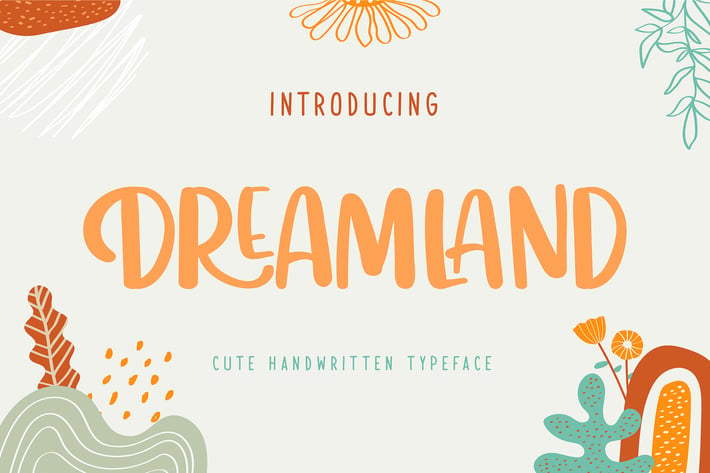
Dreamland | Cute Handwritten Typeface
Dreamland | Cute Handwritten Typeface with a calligraphy style, So beautiful on invitation like greeting cards, branding materials, business cards, quotes, posters, and more!